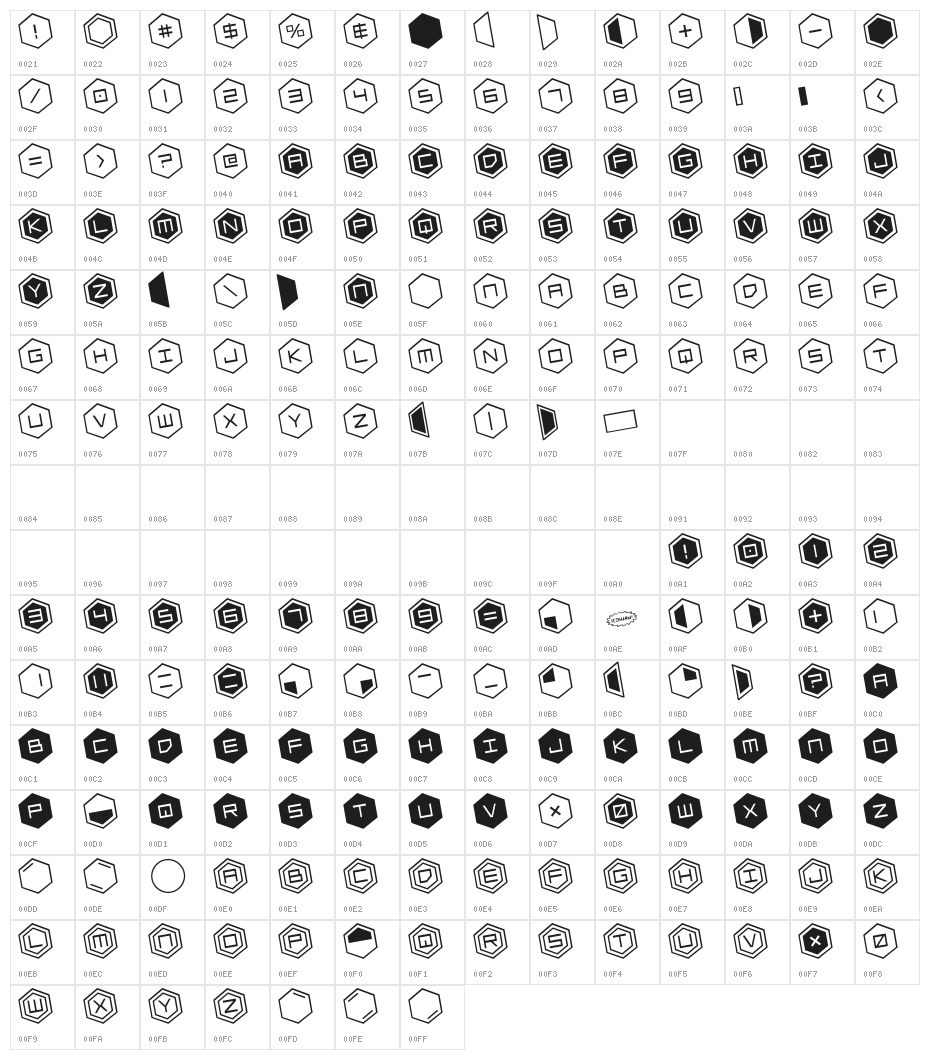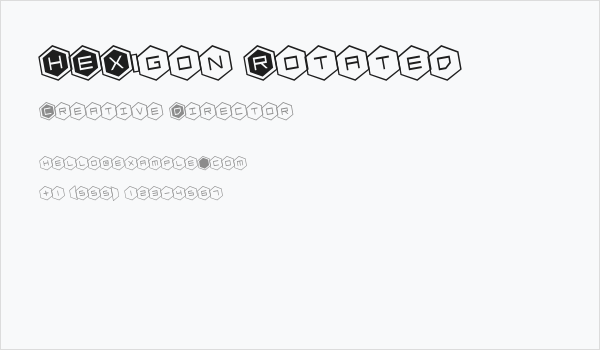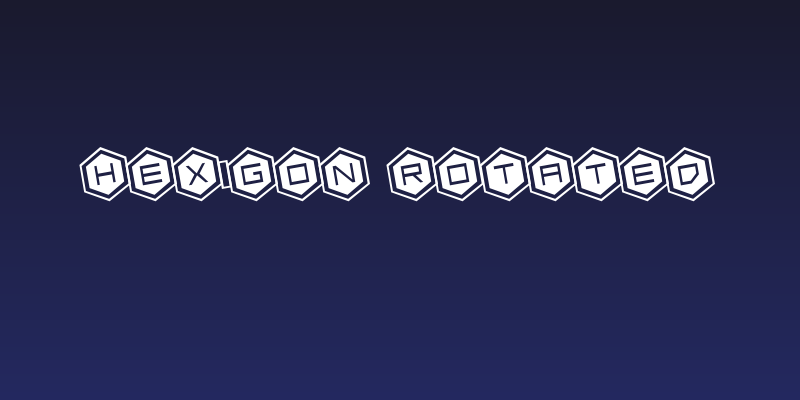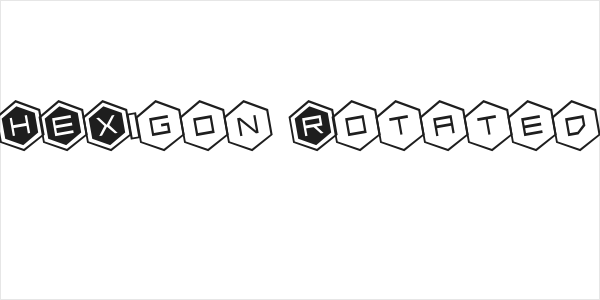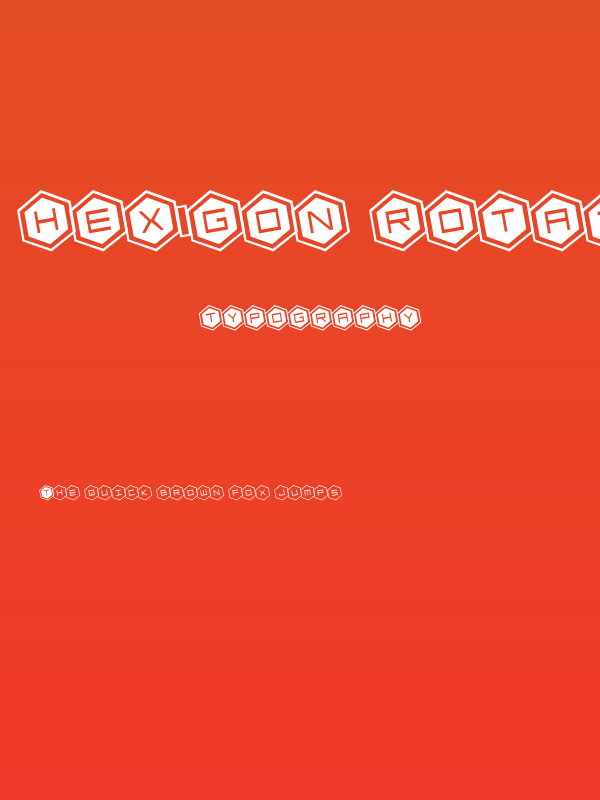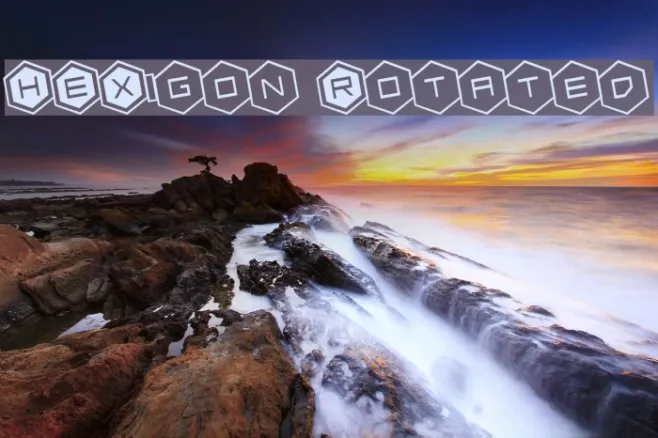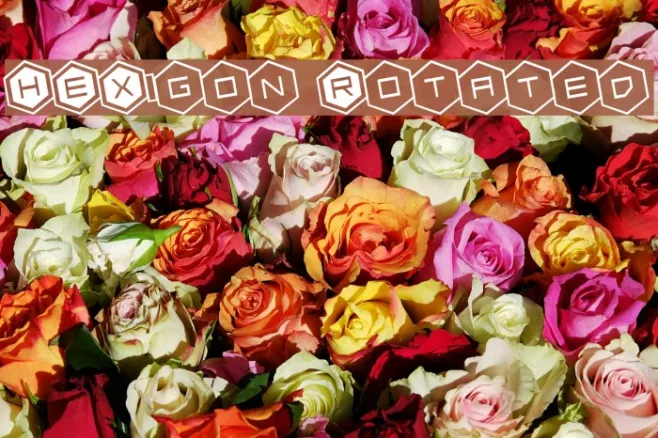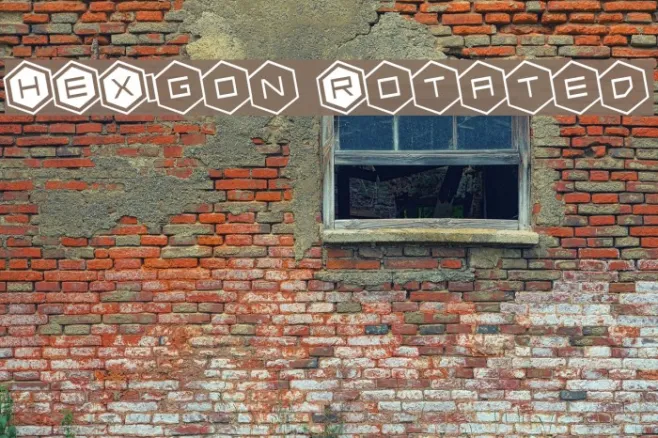
HEX:gon Rotated Font
HEX:gon Rotated Description
This font features characters enclosed within hexagonal shapes, creating a unique and geometric appearance. The letters and numbers are bold and clear, with a modern and futuristic style. The hexagonal borders add a decorative element, making each character stand out distinctly. The font is highly stylized, with a consistent thickness throughout the strokes, providing a uniform look. The special characters are also enclosed in hexagons, maintaining the overall design theme. This font is ideal for projects that require a bold and eye-catching display, such as logos, posters, or branding materials.